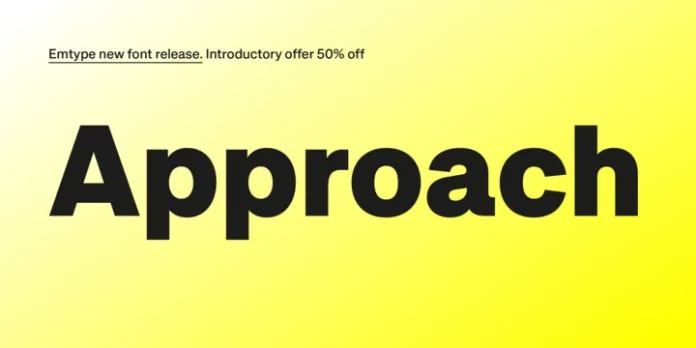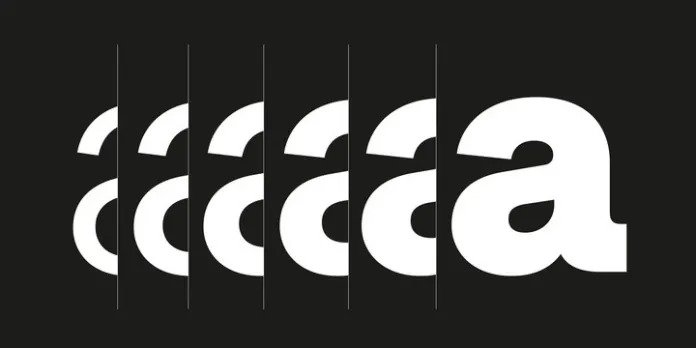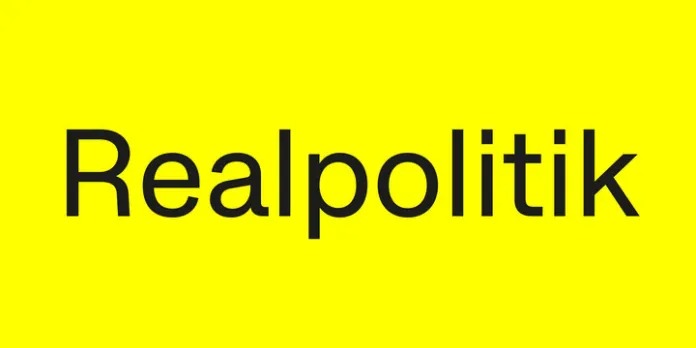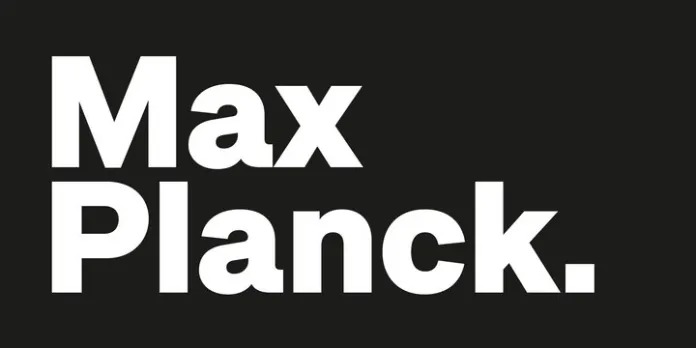
Approach Sans Serif Font with a unique personality. It comes in normal and display alternate, each with 7 weights variable. An utilitarian low contrast font, a bit mechanic but plenty of character. One of its characteristic elements is a kind of ‘elbow pipe’ shape that is present in many letters like the tail of the a, f, j, t, R, Q or 1 among others. Besides, the synthetic punctuation and quotes give it a more contemporary appearance. Approach tries to feel fresh against all odds, being familiar but different.